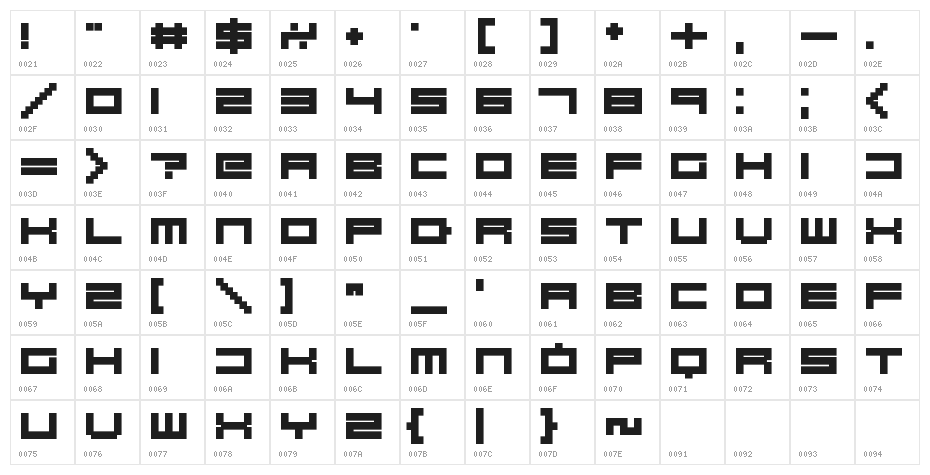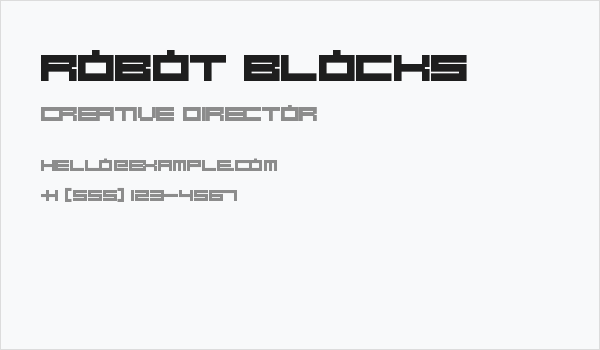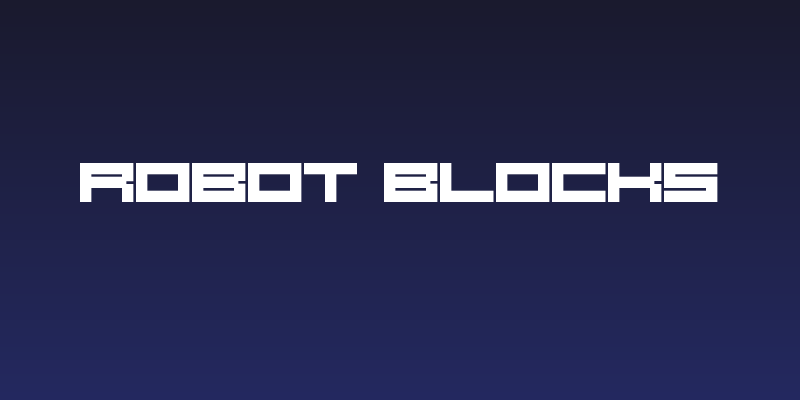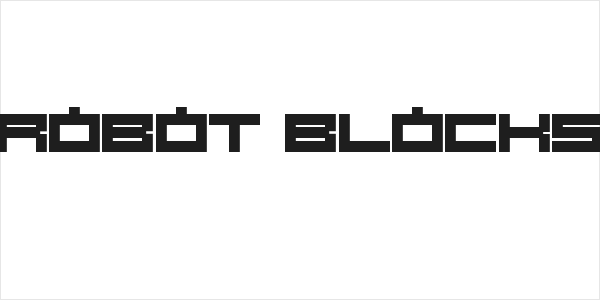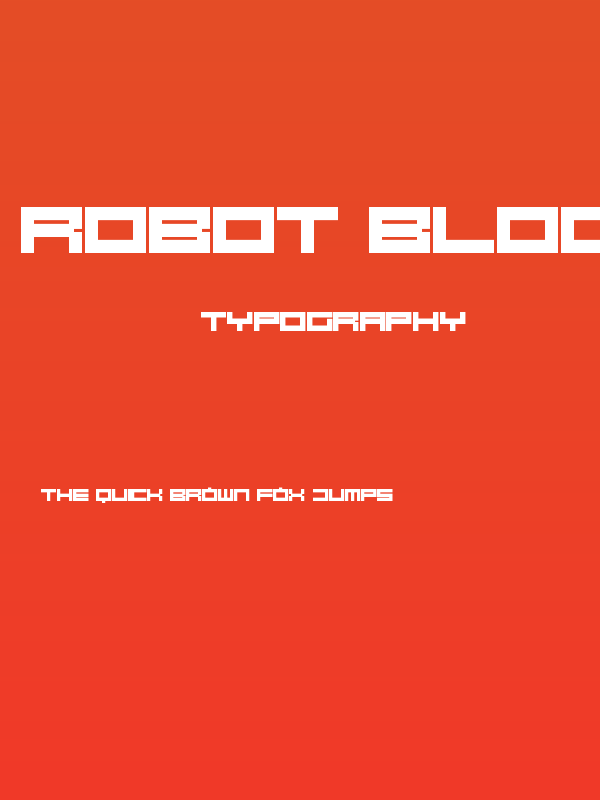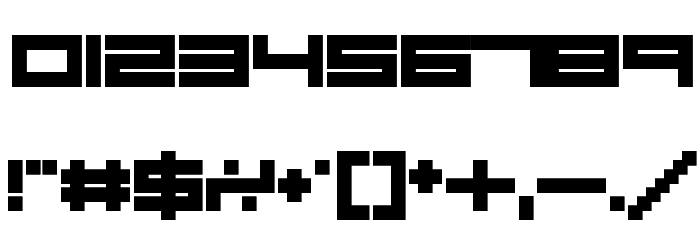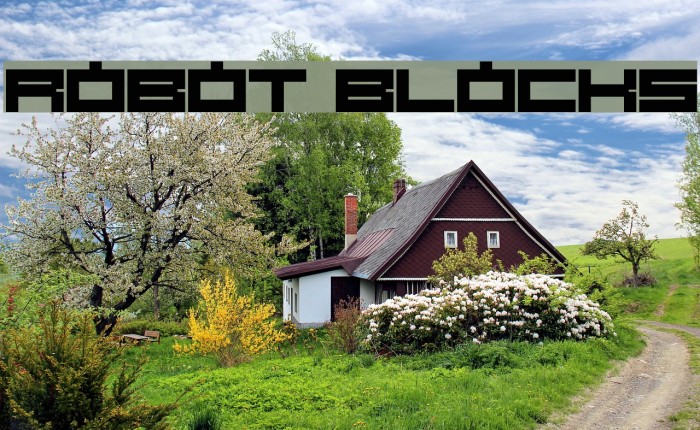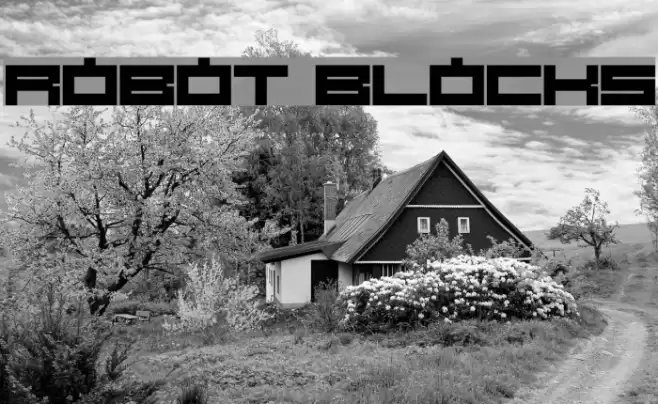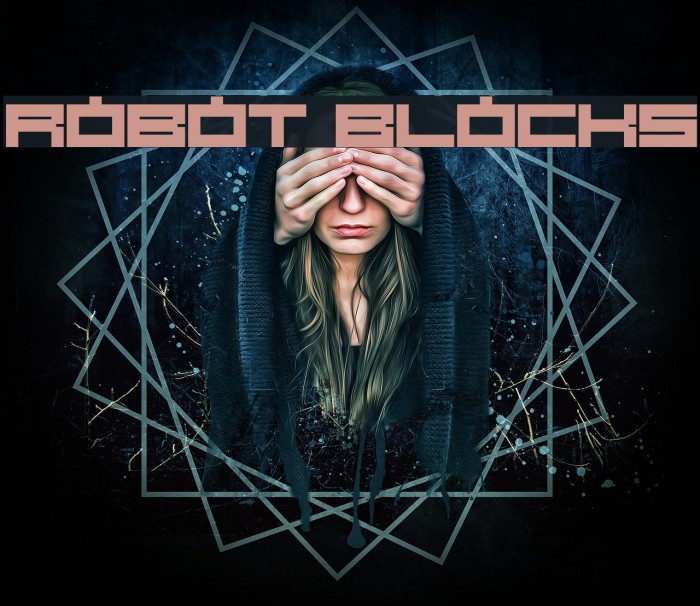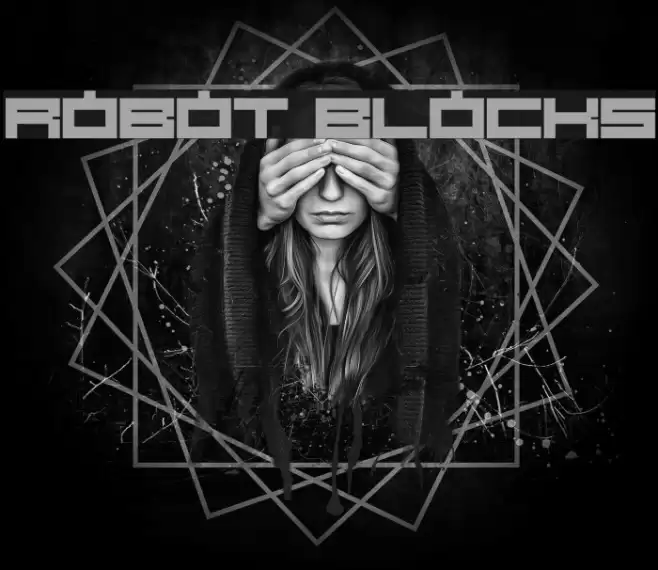
Robot Blocks Font
Robot Blocks Description
This font features a bold, geometric design with a distinctly futuristic and robotic aesthetic. The characters are constructed from block-like shapes, giving them a mechanical and digital feel. The uppercase and lowercase letters maintain a consistent height, contributing to a uniform appearance. The numbers and special characters follow the same blocky style, ensuring cohesion across all elements. The font's design is reminiscent of early digital displays or retro video game graphics, making it ideal for projects that require a tech-savvy or nostalgic touch.
| Overall Style | Futuristic |
| Proposed Projects | Ideal for technology-themed projects, video game graphics, sci-fi posters, and digital interfaces. |